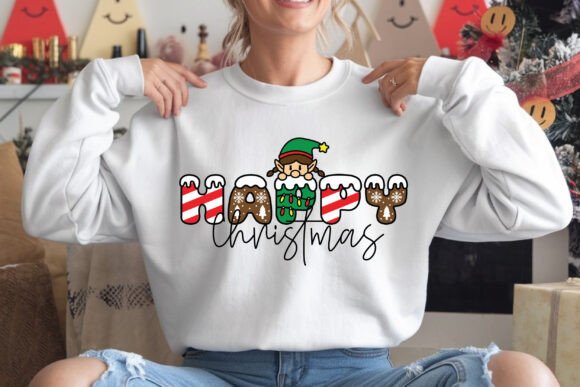
Fancy Santa Font
The Fancy Santa Color Font is a fun, festive Christmas font with six unique styles: Star, Lights, Candy, Cookies, Roll, and Snowball. It brings a playful touch to your design projects and pairs perfectly with beautiful script fonts. This font is ideal for creating designs on T-shirts, mugs, wall art, and sublimation prints, adding a joyful Christmas spirit to any project.